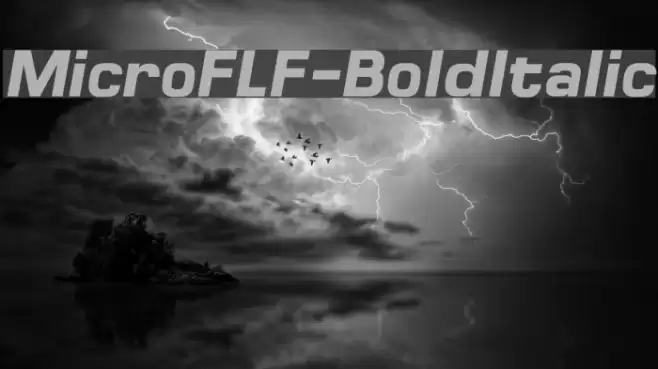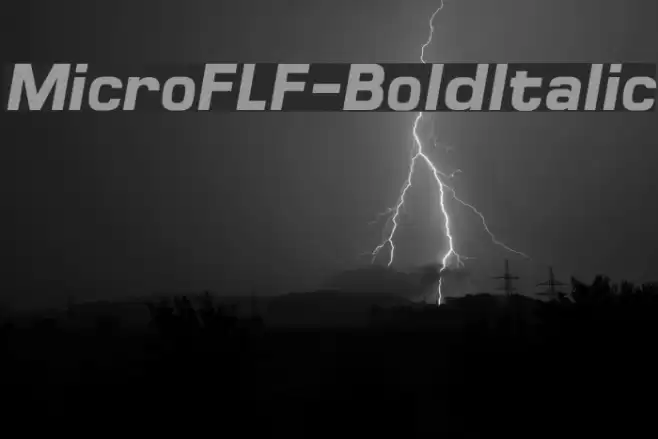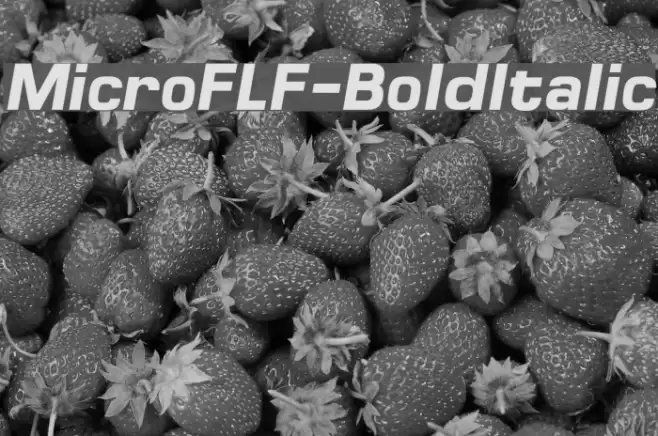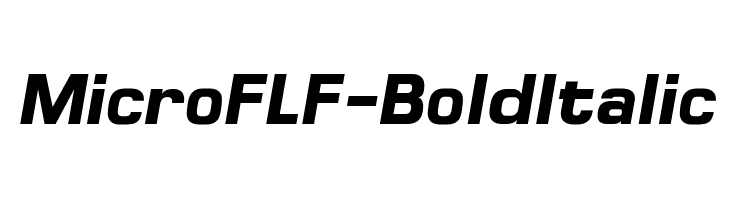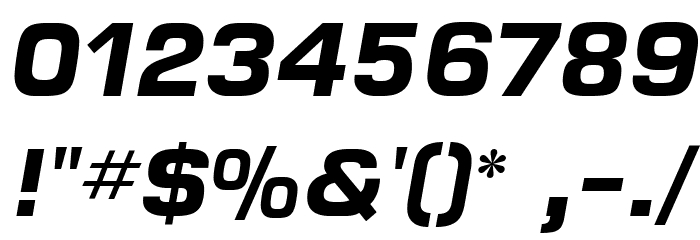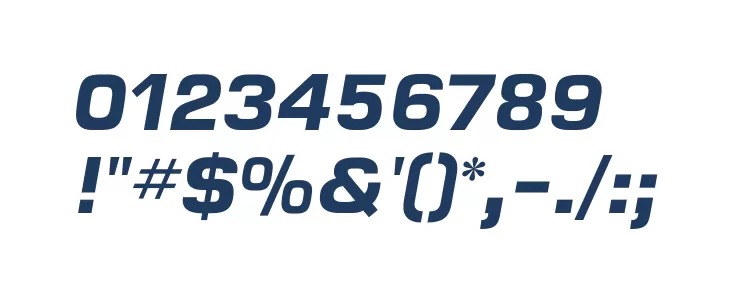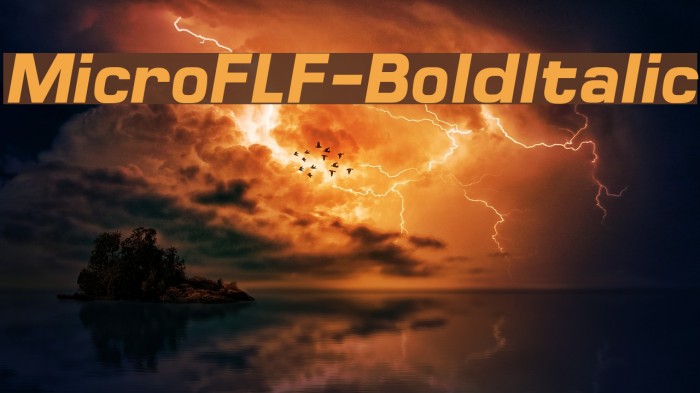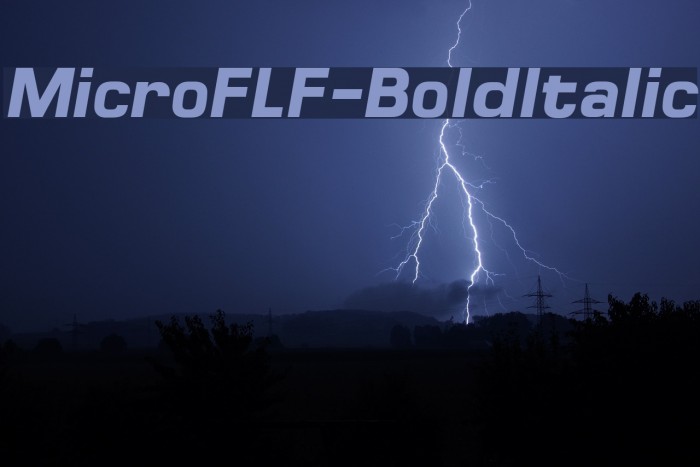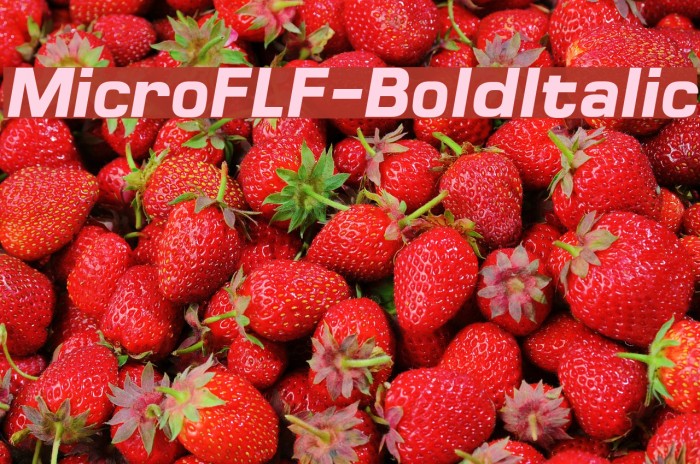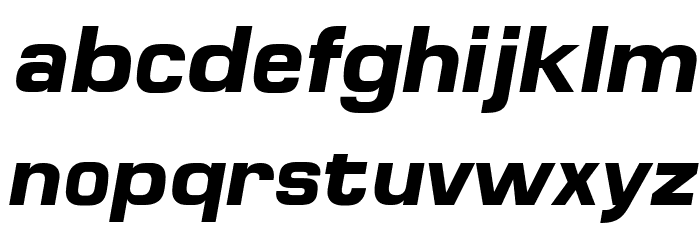
MicroFLF-BoldItalic
This font exhibits a bold and italicized style, characterized by its strong and dynamic appearance. The letters are slightly slanted, giving a sense of motion and energy. The strokes are thick and consistent, providing a robust and impactful look. The font maintains a modern aesthetic with clean lines and a uniform structure, making it suitable for various design applications. The numerals and special characters are designed to match the bold and italicized style, ensuring a cohesive look across all elements.
A bold and italicized font with a modern, dynamic style from Thick fonts.
- Proposed Projects: Ideal for branding, advertising, headlines, and any project requiring a strong, modern typeface.
- Use Case: Headlines, Logos, Branding